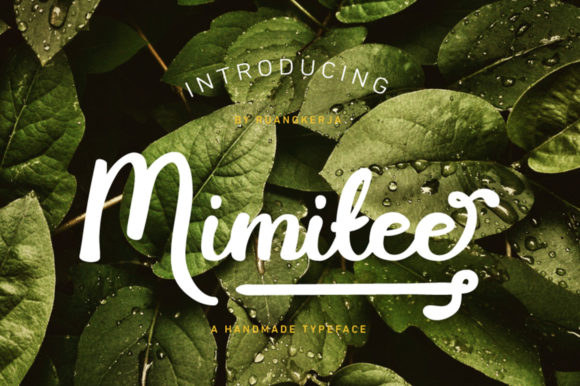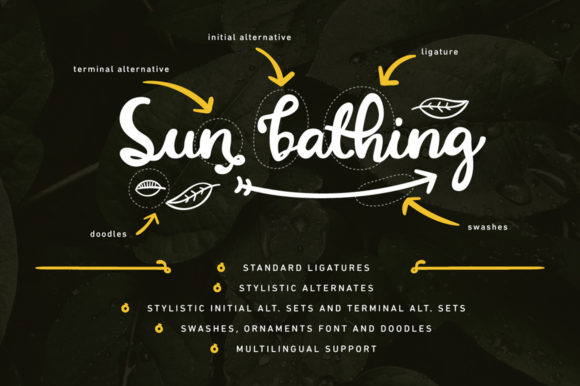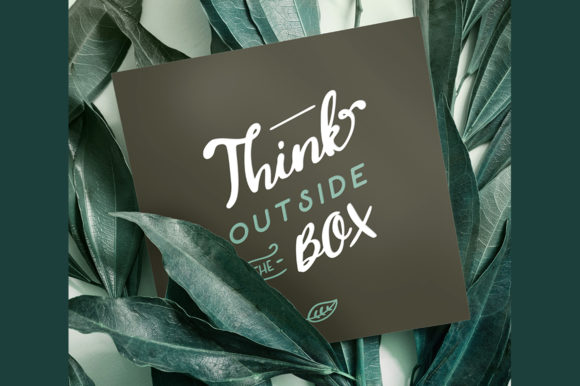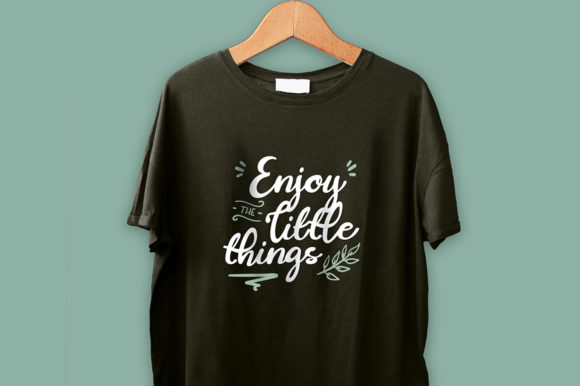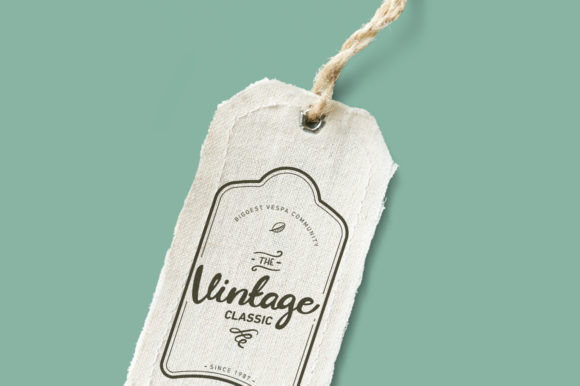
Mimitee Font
About Mimitee Font
Mimitee is a fun and authentic handwritten font, full of authentic charm! Use it to turn any design project into a stand-out.